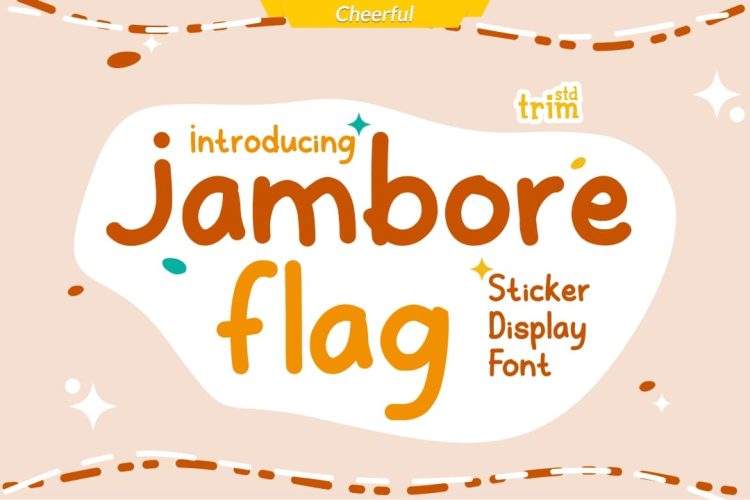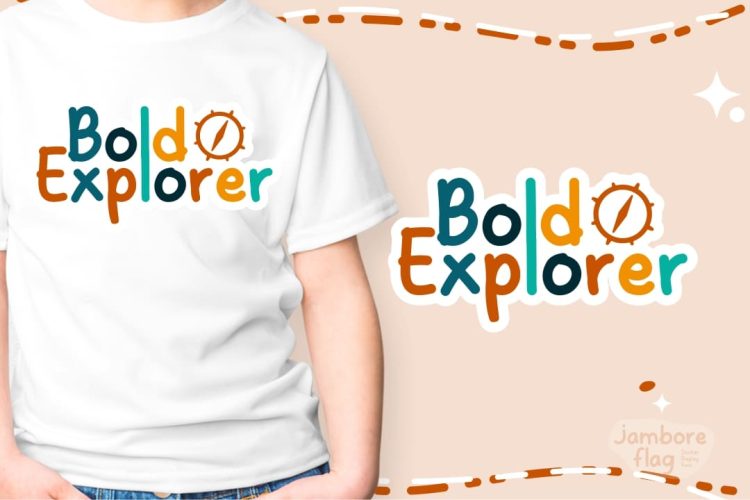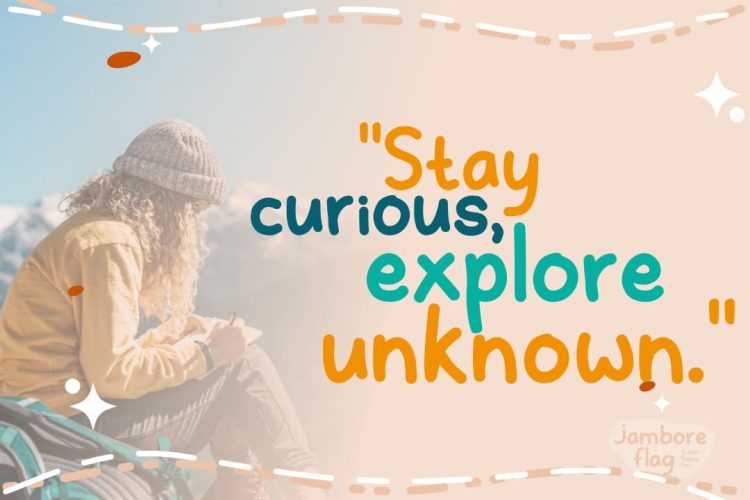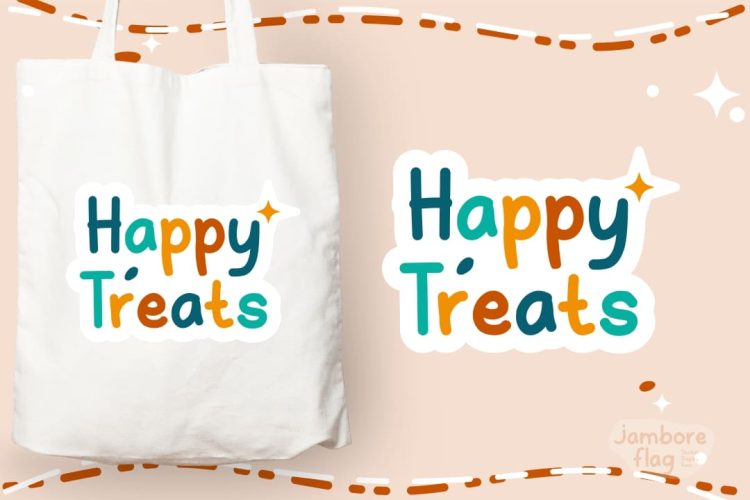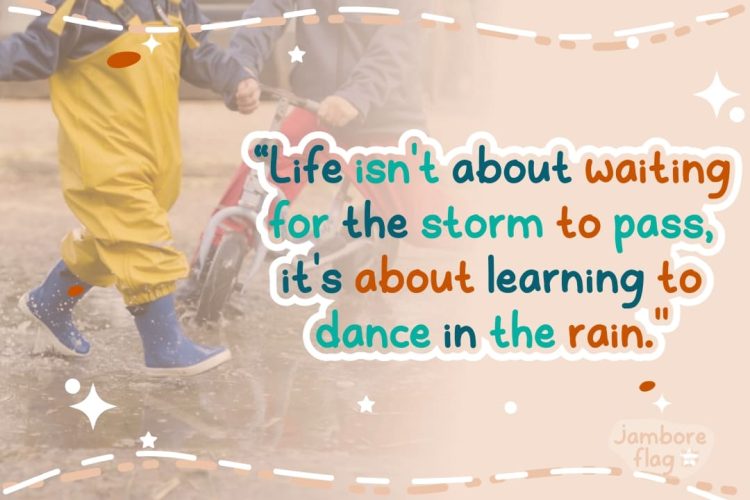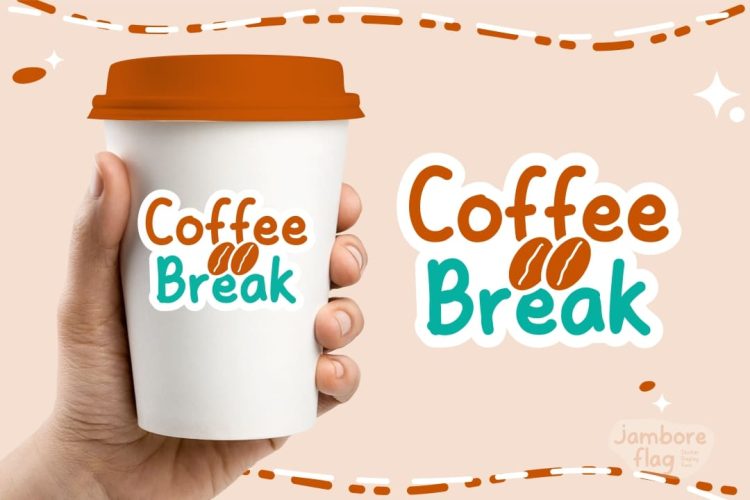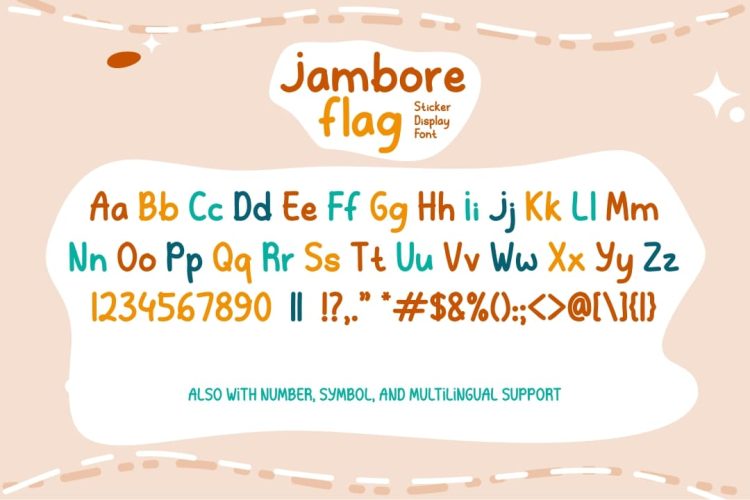
Jambore Flag is a whimsical and playful font that exudes charm and humor. With its adorable characters and quirky letterforms, this font is perfect for adding a touch of lighthearted fun to any project. Whether you’re creating greeting cards, posters, or social media graphics, “Jambore Flag” will bring a smile to your audience’s faces. Let your creativity run wild with this delightful and entertaining font!